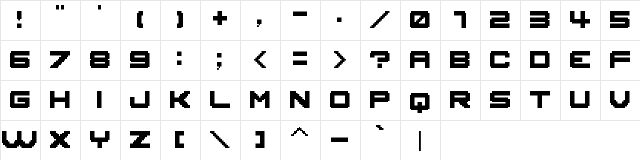
UFO-Linksite_13x11 Regular
| Designer | sahwar |
Design Context for UFO-Linksite_13x11 Typeface
UFO-Linksite_13x11 offers clean, dependable letterforms without strong stylistic allegiance, making it a practical choice for designers who need flexibility.
Pro Tip: Pair UFO-Linksite_13x11 with a font of contrasting weight or personality to build a more expressive typographic hierarchy.